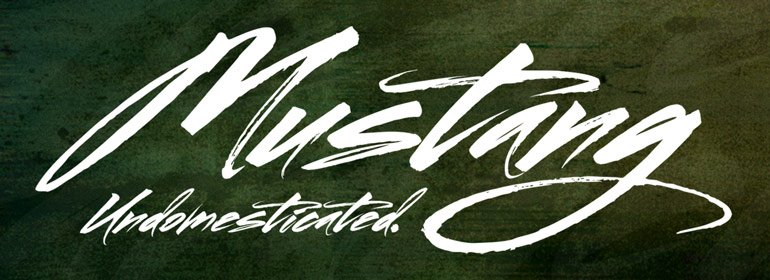
Today, I have an amazing brush script font to share with you called the Mustang Font created by Robert Arnow. This font has a strong and bold appearance that really stands out. If you want to add some boldness to your designs, this typeface is perfect for you.
This typeface has vast language support and this typeface with the likes of grobold font can start creating different designing projects along with the creation of the innovative advertisement.
Mustang Font is the script cursive typeface that can download for free. The style of this brush typeface is great for the creation of different designs for example ads, logos, and branding purposes.
This is the best font to be chosen among all other typefaces if you want this for typesetting physique text along with the clearview font. This is the common typeface that is used by the different designers in the typographer’s surroundings booklet.
This Font Family is the brush typeface that was designed ad published by Robert Arnow.